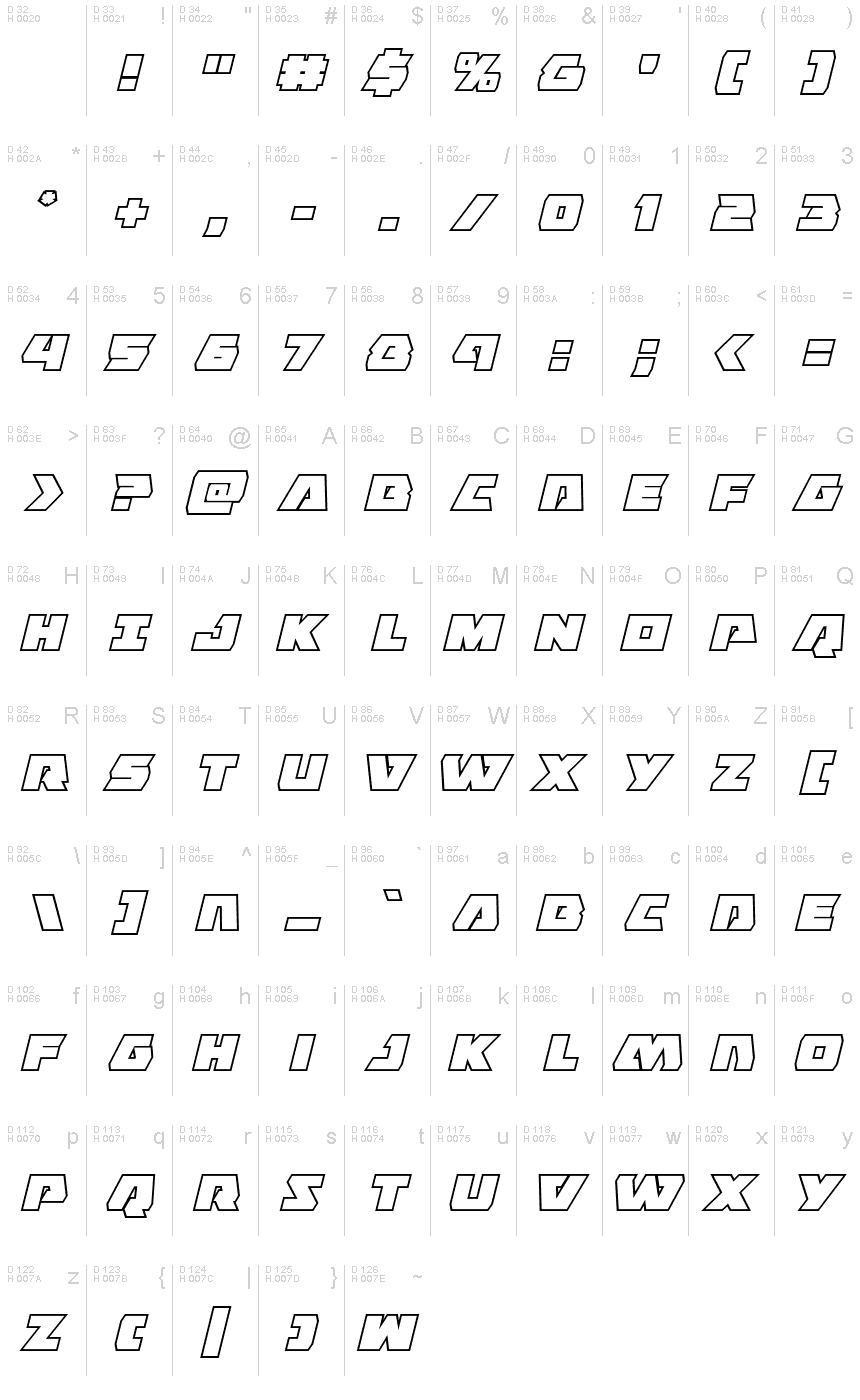
Eagle Strike Bold Outline Ital
Eagle Strike Bold Outline Italic is a striking, futuristic font designed by Daniel Zadorozny. Its extra-bold weight and expanded width make it perfect for attention-grabbing headlines, titles, and logos. The outlined display style adds an edgy touch to any design project. This font is suitable for a wide range of projects, from sci-fi movie posters to tech company branding. Use it to create a bold statement in your designs and stand out from the crowd. With Eagle Strike Bold Outline Italic, you can take your designs to the next level and leave a lasting impression on your audience.